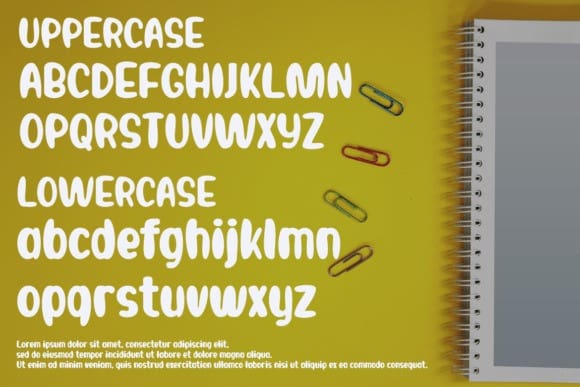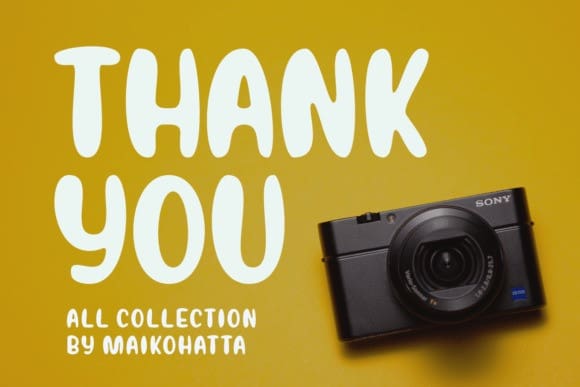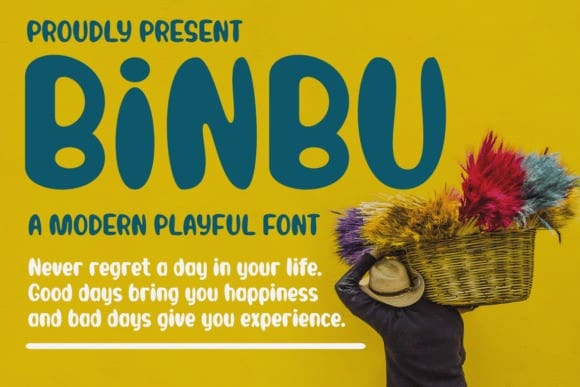
Binbu Playful Font
Binbu Playful Font, suitable for greeting cards, invitations, posters, baby clothing, books cover, quotes, logos, presentations, headline, etc.outstanding in a wide range of contexts.